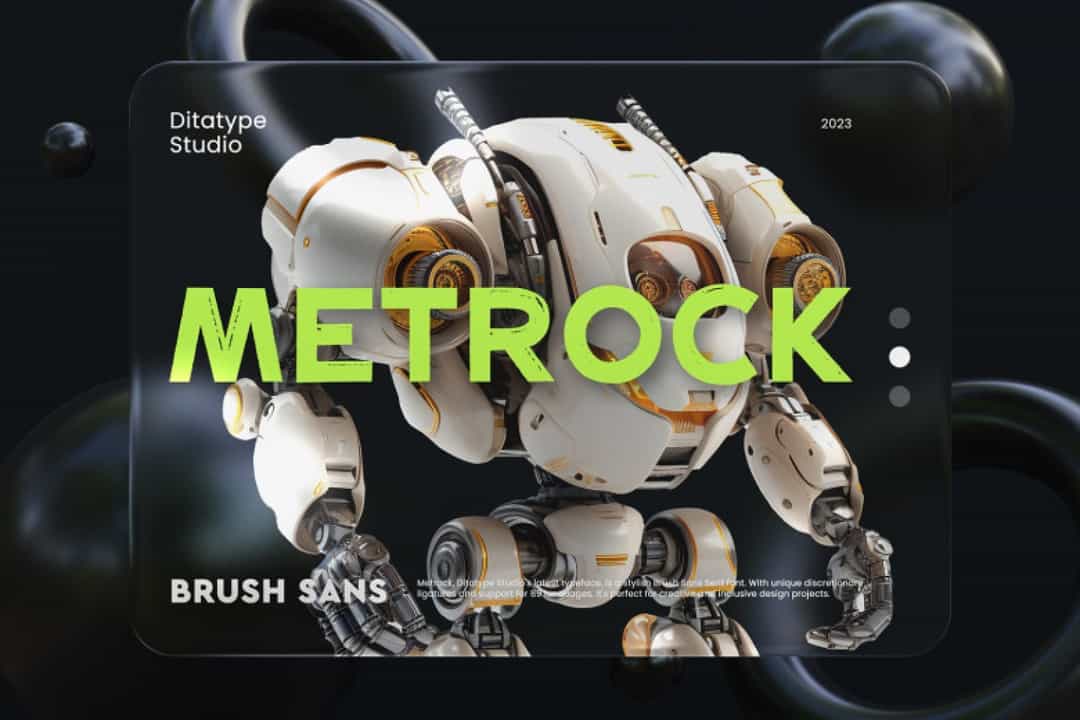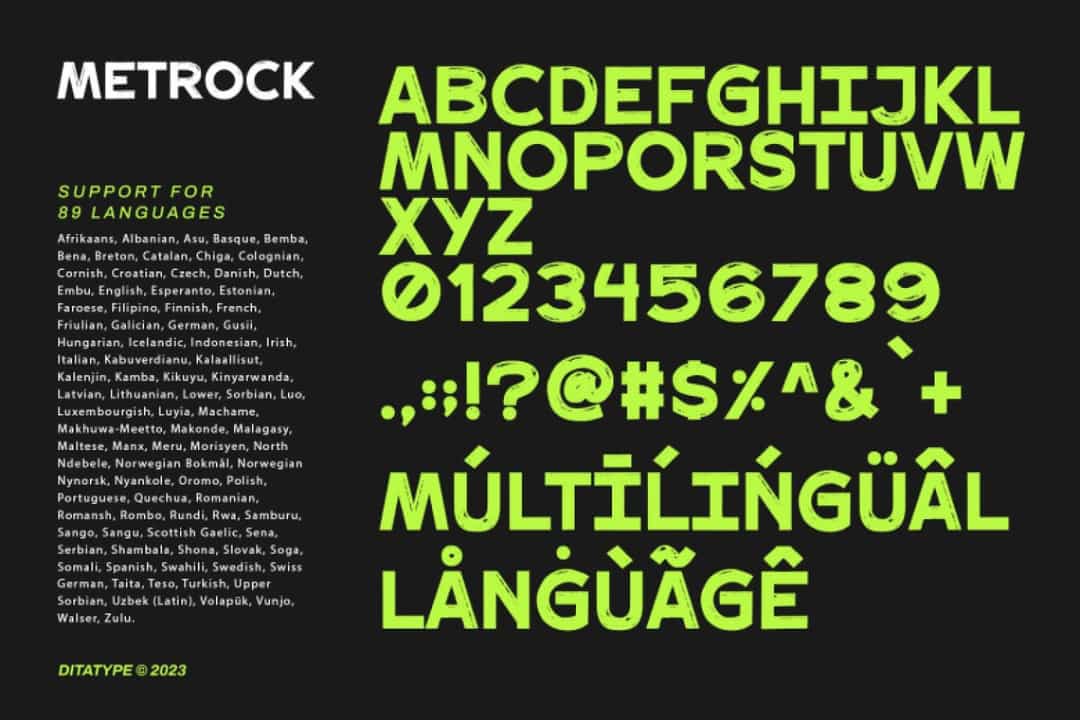
Metrock is an elegant brush sans serif style with strong brush strokes that exudes modernity, strength and individuality. Crafted with big letters, Metrock stands as an example of striking design combined with rugged sophistication – its characters feature bold characters with boxy forms designed to draw the eye of readers.